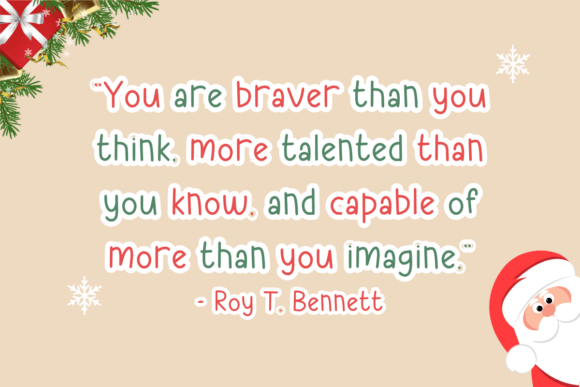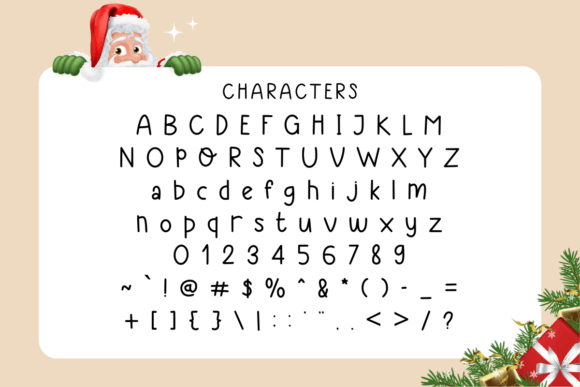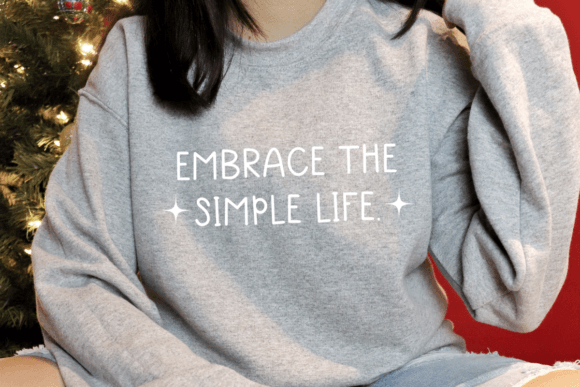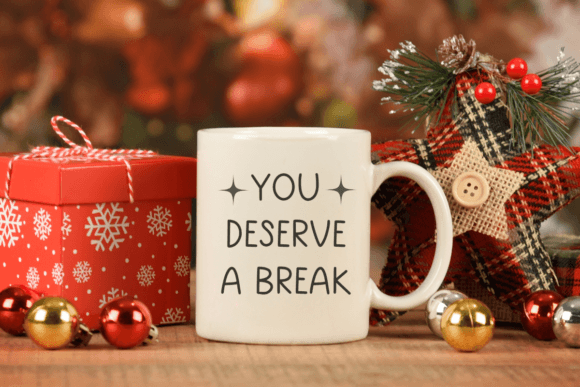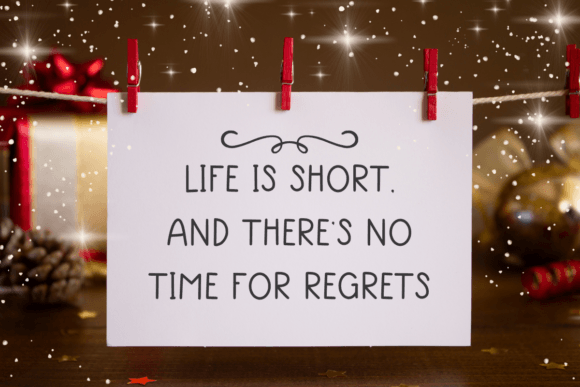
Introducing Christmas Note Font: The Perfect Blend of Whimsy and Practicality
Are you on the lookout for a font that can add a touch of magic to your designs? Look no further than Christmas Note, a charming sans serif typeface that exudes whimsy and creativity. This handwritten font is perfect for capturing the essence of thoughtful memos, intimate journal entries, and day-to-day notes, making it an excellent addition to your design arsenal.
Unleashing Creativity with Christmas Note
Christmas Note is more than just a font – it’s an experience. Its playful curves and lines effortlessly elevate the design of interior KDPs, transforming every page into a delightful surprise. Whether you’re working on a creative project or simply jotting down notes, this font brings a sense of fun and playfulness that’s hard to resist.
One of the standout features of Christmas Note is its versatility. This font is perfect for a wide range of applications, from stationery and paper goods to printables and low-content papers. Its unique blend of whimsy and practicality makes it an excellent choice for designers and crafters looking to add a personal touch to their work.
Elevating Stationery and Paper Goods
In the realm of stationery and paper goods, Christmas Note proves equally captivating. From teacher’s planners to festive greeting cards and personalized invitations, the font brings a touch of heartwarming DIY aesthetics that’s sure to delight. Its playful curves and lines add a level of sophistication and elegance, making it perfect for special occasions.
But Christmas Note isn’t just limited to traditional stationery. It also finds its way into scrapbooking, adding vibrancy to every cutout and paper clip. Whether you’re creating a beautiful memory book or a unique gift, this font is sure to make your project stand out.
Designed for Everyday Convenience
Christmas Note is designed for everyday convenience, making it perfect for practical items such as printables, low-content papers, calendars, to-do lists, and note sheets. The font shines brightly in intricately designed workbooks, monthly or weekly planners, and daily planner journals, adding a touch of personality to even the most mundane tasks.
For KDP interiors and KDP templates, Christmas Note is an excellent choice. Its unique blend of whimsy and practicality makes it perfect for creating eye-catching and engaging designs that are sure to capture the attention of your audience.
Why Choose Christmas Note?
So why choose Christmas Note over other fonts? Here are just a few reasons:
- Unique and eye-catching design: Christmas Note’s playful curves and lines make it a standout font that’s sure to capture attention.
- Versatile and adaptable: This font is perfect for a wide range of applications, from stationery and paper goods to printables and low-content papers.
- Easy to read and use: Despite its whimsical design, Christmas Note is easy to read and use, making it perfect for everyday applications.
- Perfect for KDP interiors and templates: This font is an excellent choice for KDP interiors and templates, adding a touch of personality and whimsy to your designs.
In conclusion, Christmas Note is a charming sans serif typeface that’s perfect for designers and crafters looking to add a touch of whimsy and creativity to their work. Its unique blend of playfulness and practicality makes it an excellent choice for a wide range of applications, from stationery and paper goods to printables and low-content papers.
Whether you’re working on a creative project or simply looking for a font to add some personality to your everyday tasks, Christmas Note is an excellent choice. So why not give it a try and see the magic it can bring to your designs?